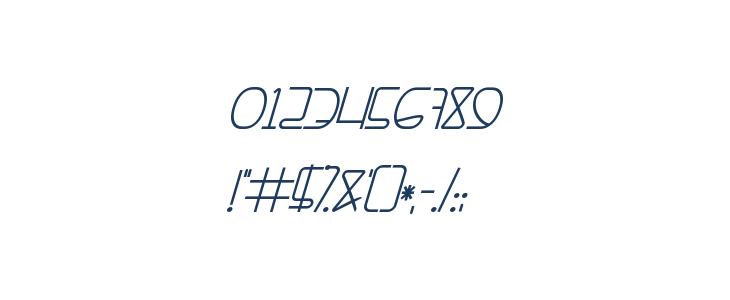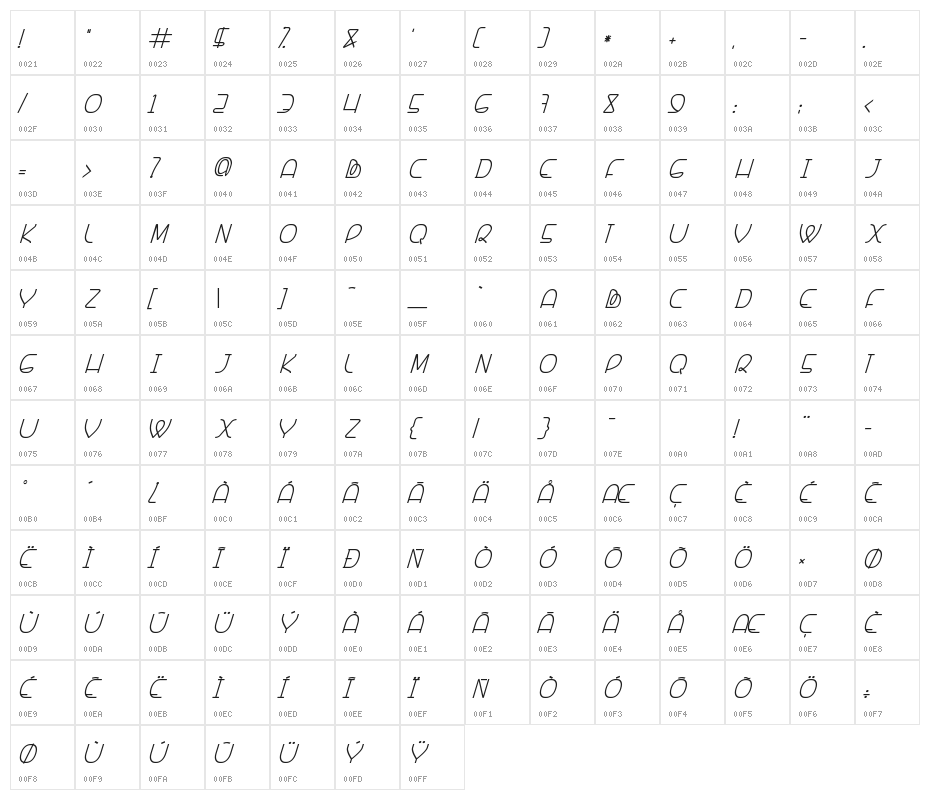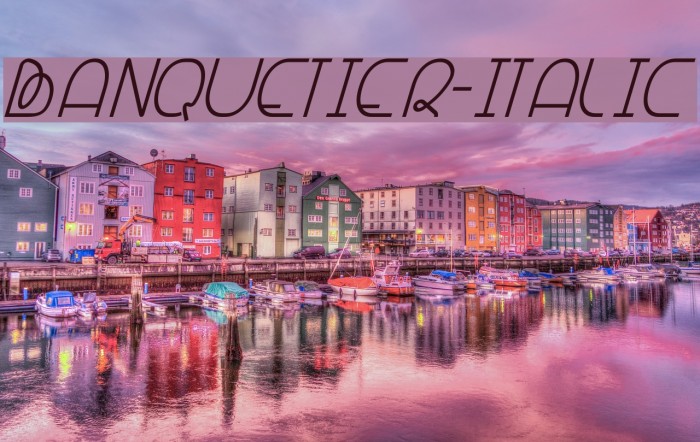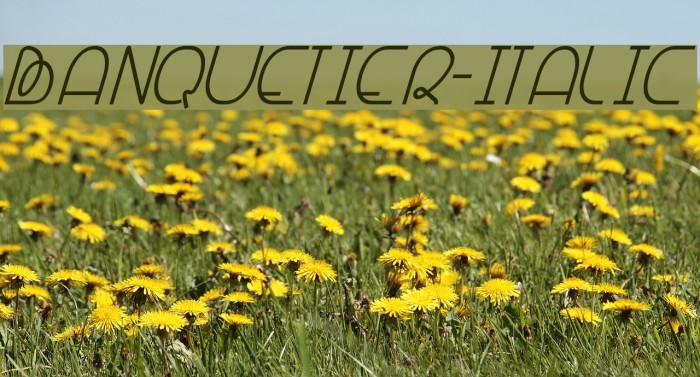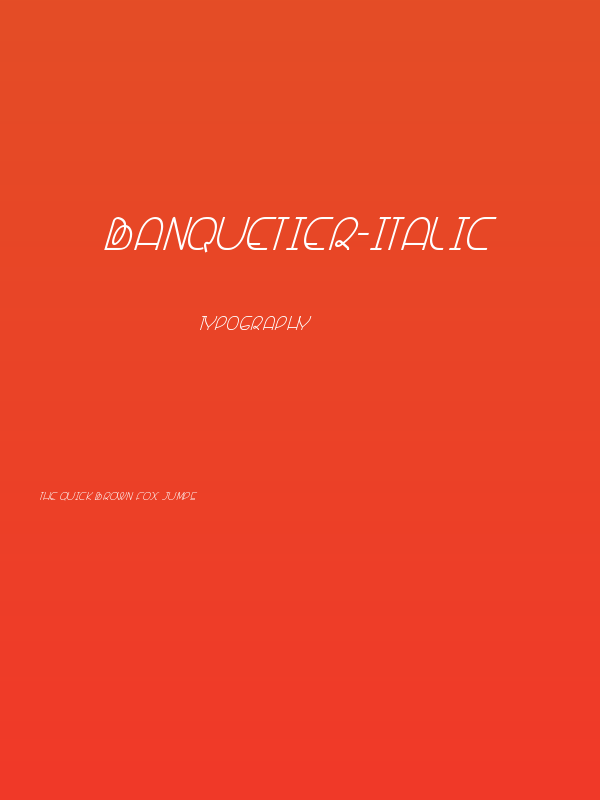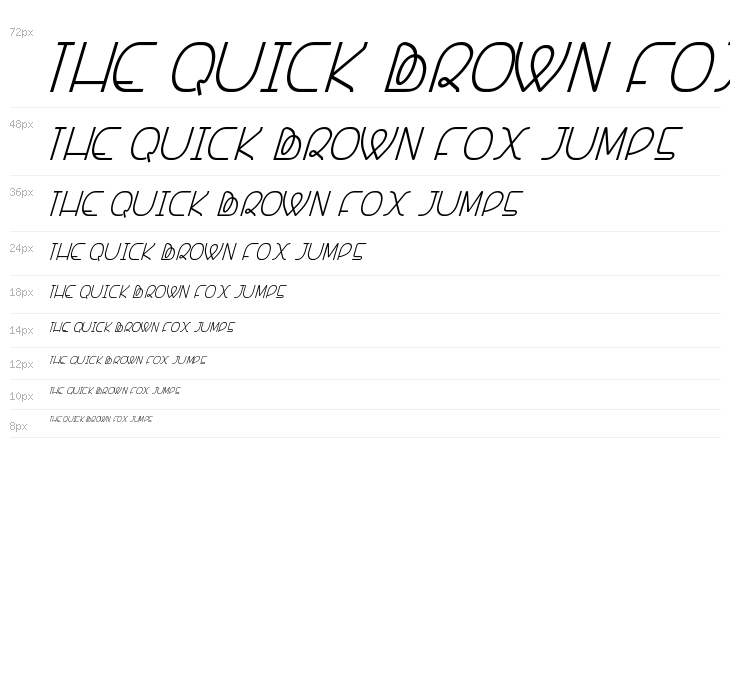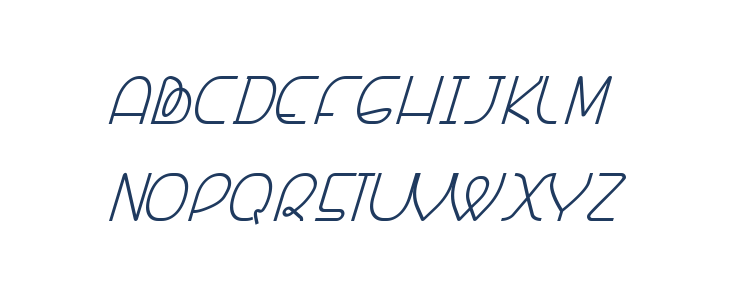
Banquetier-Italic Font
Banquetier-Italic Description
This font features a sleek, italicized design with a modern flair. The characters are crafted with smooth, flowing lines that give a sense of elegance and movement. The uppercase letters are distinct with a slight slant, enhancing the italic style. The lowercase letters maintain a consistent style, complementing the uppercase with their graceful curves. Numbers are clear and legible, following the same italicized pattern. Special characters are uniquely styled, adding a touch of sophistication. Overall, the font exudes a contemporary and stylish vibe, perfect for creative and artistic projects.
| Proposed Projects | Ideal for wedding invitations, elegant branding, fashion magazines, and artistic posters. |